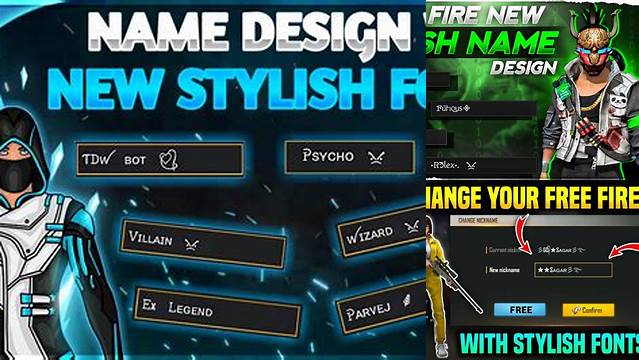
Free Fire Name Font Design: Cool Nicknames & Stylish Text (2024 Guide)
Hey Free Fire fanatics! 👋 Want to jazz up your in-game name and stand out from the crowd? You've come to the right place! This guide is all about Free Fire name font design, helping you create super cool and unique nicknames using stylish text. We'll dive into everything from font generators and special characters to tips on choosing the perfect name and making your profile pop. Let's get started and transform your ordinary name into something extraordinary!
The Power of a Stylish Free Fire Name
First things first, why bother with a fancy name in Free Fire? Well, a killer name is more than just a collection of letters and numbers – it's your brand! It's how people recognize you, remember you, and maybe even fear you (in a friendly, competitive way, of course!). A well-designed name can make a real impact. Imagine scrolling through the player list and seeing the same old generic names versus a creatively designed one. Which one catches your eye? The unique one, right? That's the power of a stylish Free Fire name font design. It’s like having a custom logo for your gaming persona. Think of it as the ultimate digital flex. It showcases your personality, your dedication to the game, and your willingness to go the extra mile to look awesome. Plus, a cool name is a great conversation starter. People might ask you how you created it, giving you a chance to connect with other players and share your pro tips. It can also add a layer of intimidation or intrigue, letting others know you're not to be messed with. You're essentially building your in-game reputation. In a game where millions are battling for supremacy, a unique and eye-catching name can be a powerful advantage. It's about more than just playing; it's about making a statement. So, if you're serious about leveling up your game, start with your name. Get creative, have fun, and let your personality shine. A good name also signifies your commitment to the game, making you appear as a serious and dedicated player. This can sometimes even translate into attracting better teammates or clan invitations. Remember that in Free Fire, your name is your identity, and your identity is a crucial part of the gaming experience.
Free Fire Name Font Generators: Your Creative Toolkit
Now, let's get into the nitty-gritty. How do you actually create those awesome names? That's where Free Fire name font generators come in! These online tools are your secret weapon for crafting stylish text. There are tons of them out there, and they're super easy to use. Simply type in your desired name or word, and the generator will convert it into various fonts and styles. From fancy cursive to bold block letters, you'll have a wide array of options to choose from. The best part? Most of these generators are completely free to use! You don't have to spend any money to give your name a makeover. These tools are essentially your digital font factories. They work by using Unicode characters, which are special symbols and characters that go beyond the standard alphabet. This allows you to create unique text styles that aren't normally available on your keyboard. When you are selecting a Free Fire name font design keep in mind that generators offer many style options. Different generators may have different fonts and special characters, so it's worth exploring a few to find the perfect style for your name. Some generators also allow you to customize the text even further, letting you add symbols, emojis, and other decorative elements. This gives you even more control over your name's appearance. Remember that these generators do not just change the font; they transform your text into something visually engaging, and that is the main goal of Free Fire name font design. The key is to experiment and play around with different styles until you find a design that you love and that represents your style. There's a huge community of players who actively use and share tips on these generators, so don't hesitate to search online forums and communities for recommendations and inspiration. Always remember to copy and paste the generated text into your Free Fire profile. The game will recognize the special characters and display your name in the customized font.
Special Characters and Symbols: Adding Flair to Your Name
Beyond fonts, special characters and symbols are the secret ingredient to a truly unique Free Fire name font design. They are the sprinkles on top of your gaming sundae, adding a touch of personality and flair that sets you apart. Think of them as the embellishments that transform a plain name into a work of art. These symbols come in various forms: hearts, stars, arrows, and even mathematical symbols. They can be used to frame your name, add emphasis, or create visual effects. The beauty of these characters lies in their versatility. You can use them to create borders, surround your name with decorative elements, or simply add a single, striking symbol to make your name stand out. You can also combine multiple symbols to create complex designs. Special characters are often found in font generators, so you can easily incorporate them into your text. Many websites and online resources also offer lists of special characters that you can copy and paste directly into your name. Remember that the possibilities are endless, and it’s all about creativity and expression. When choosing these symbols for your Free Fire name font design, consider what they represent. A heart might signify love for the game, a star could symbolize achievement, and an arrow could indicate your competitive spirit. The key is to use symbols that resonate with you and convey your personality. Just make sure the characters you choose are supported by Free Fire. Some symbols might not render correctly in the game, so it's always a good idea to test your name before finalizing it. Experiment with different combinations and find what looks best to you. You can also use these characters to create hidden or coded messages, adding an element of mystery to your name. If you are ever struggling with ideas, browse through other players' names or search online for inspiration. The goal is to use these characters to enhance your name, making it visually appealing and memorable.
Tips for Choosing the Perfect Free Fire Name
Choosing the right name is a crucial part of Free Fire name font design, as it's more than just how your name looks, it's also about what your name says. Start by brainstorming a list of potential names. Consider your play style, your favorite weapons, or anything else that represents you in the game. Think about what you want your name to convey. Do you want to be feared, respected, or simply remembered? The name should reflect your personality and gaming style. If you're a skilled sniper, a name like